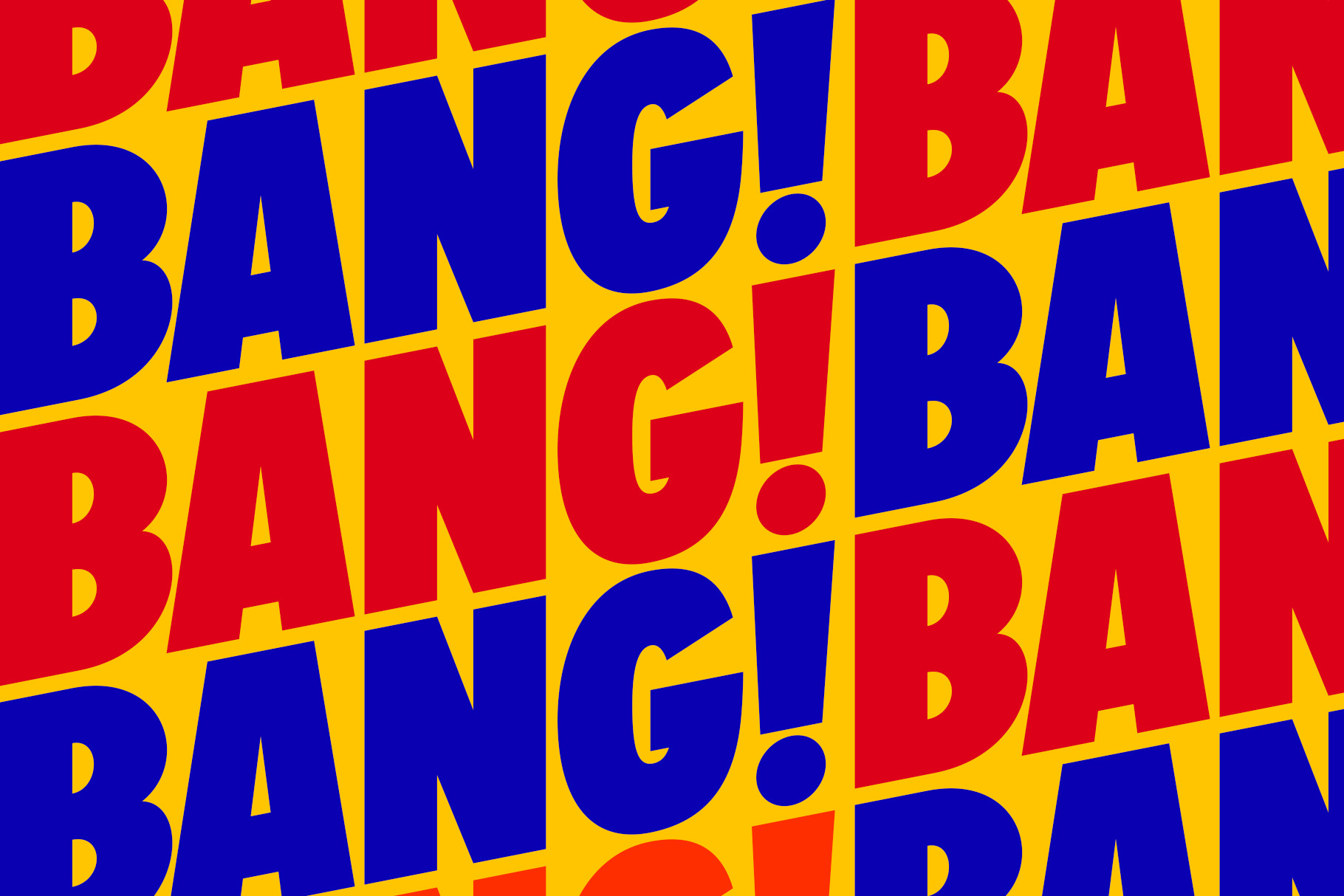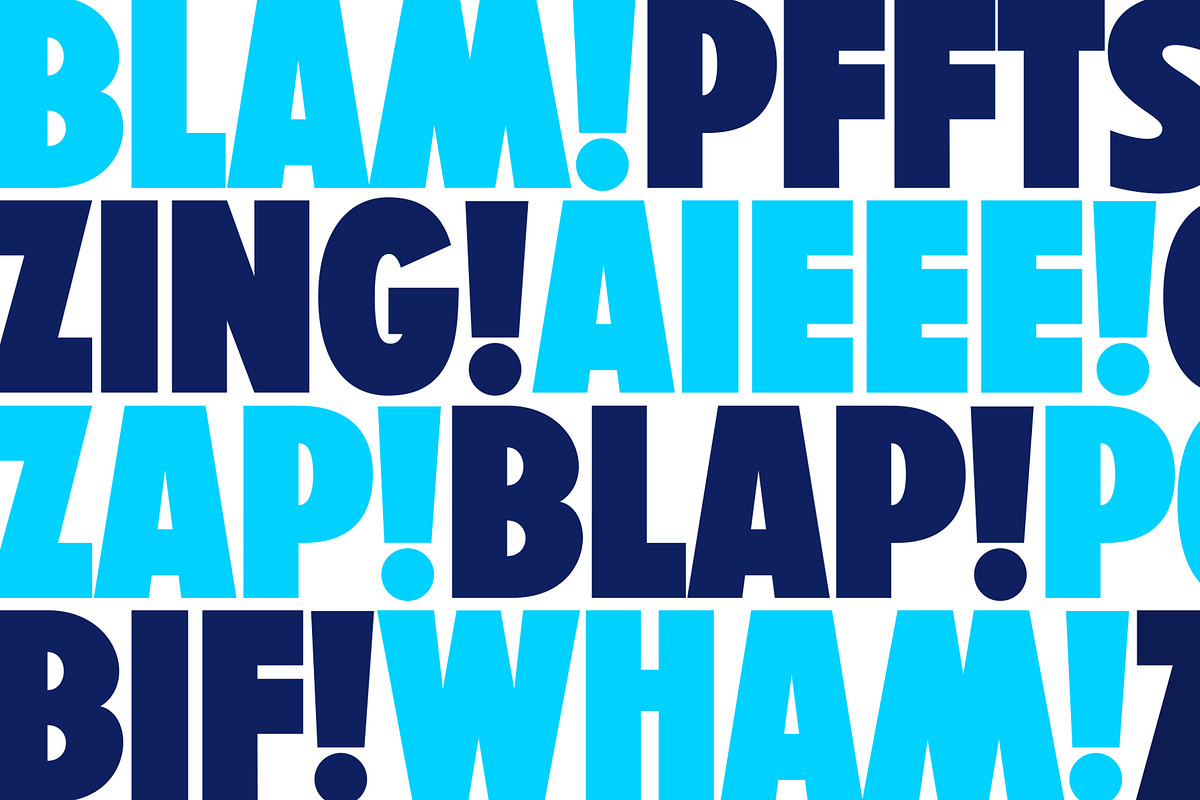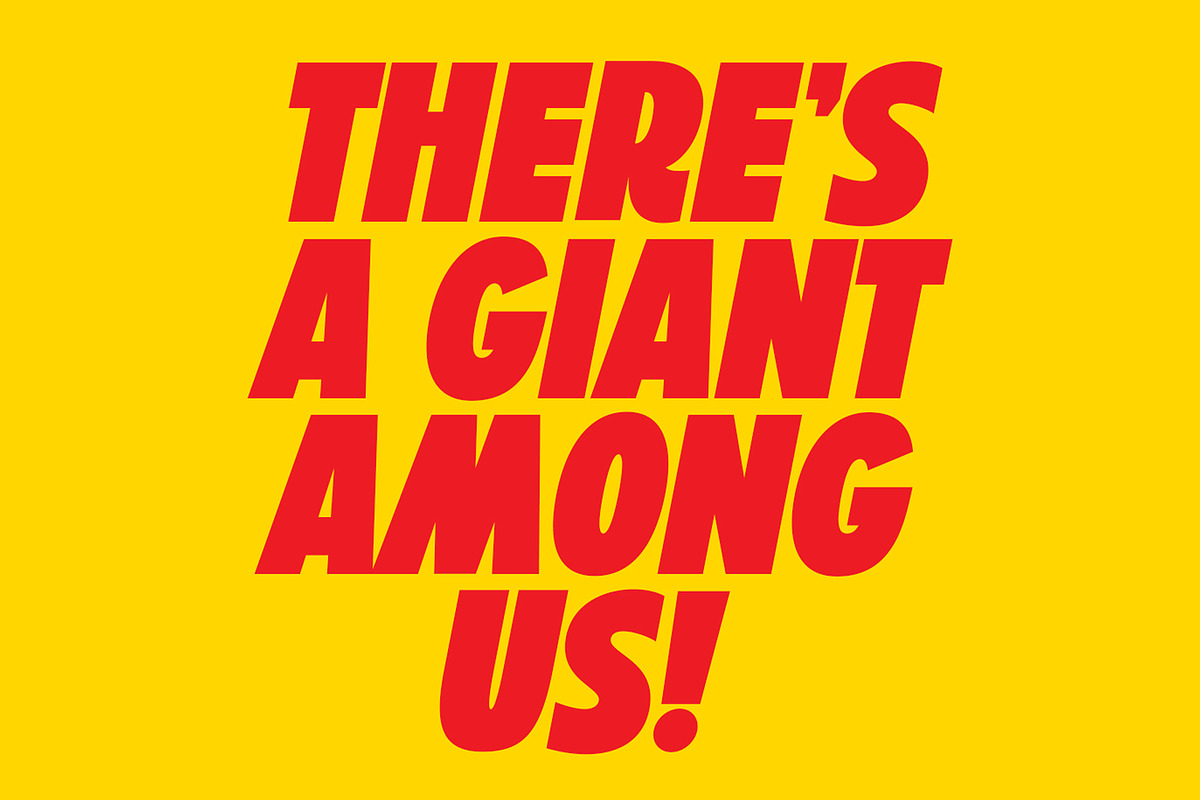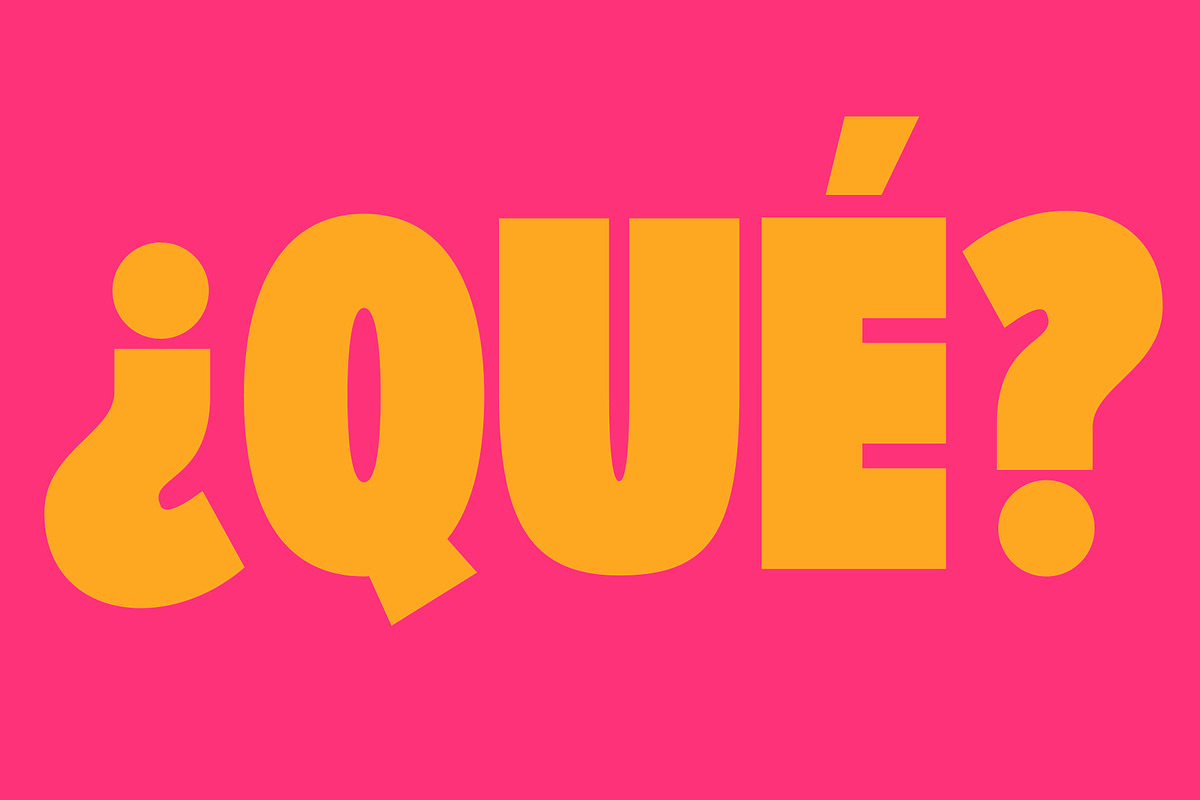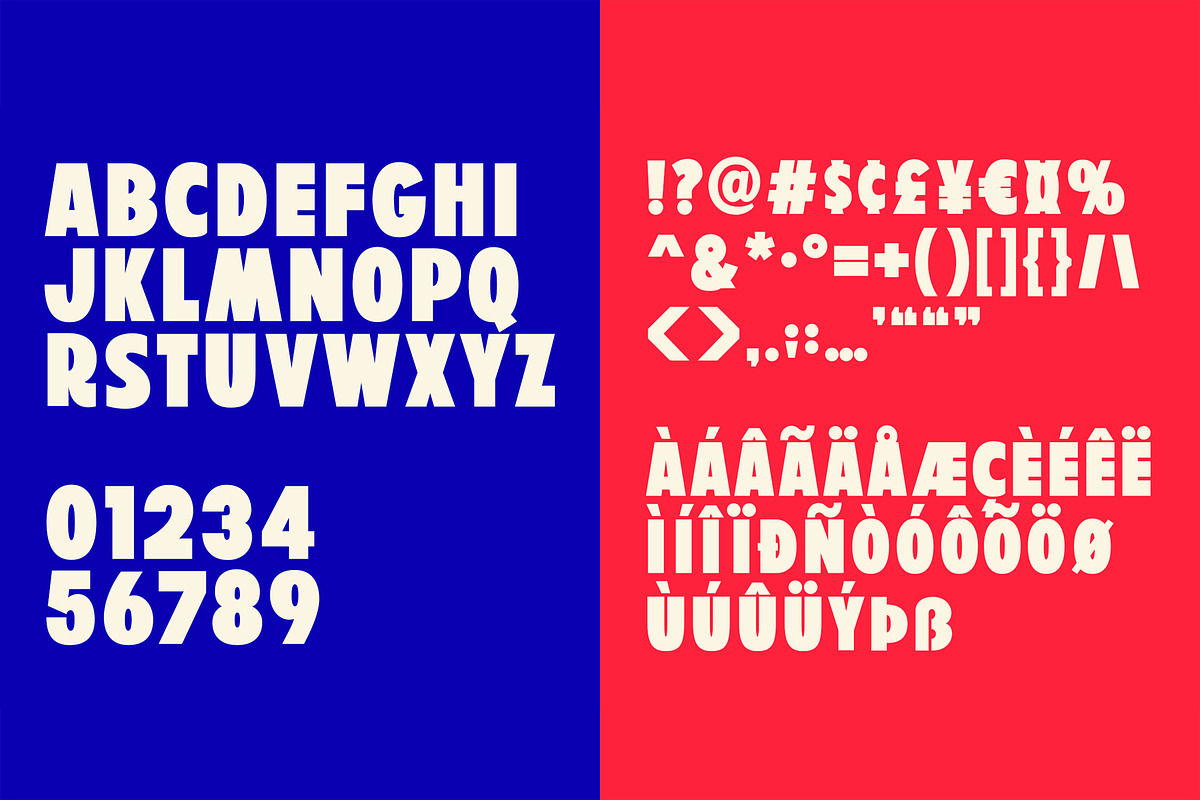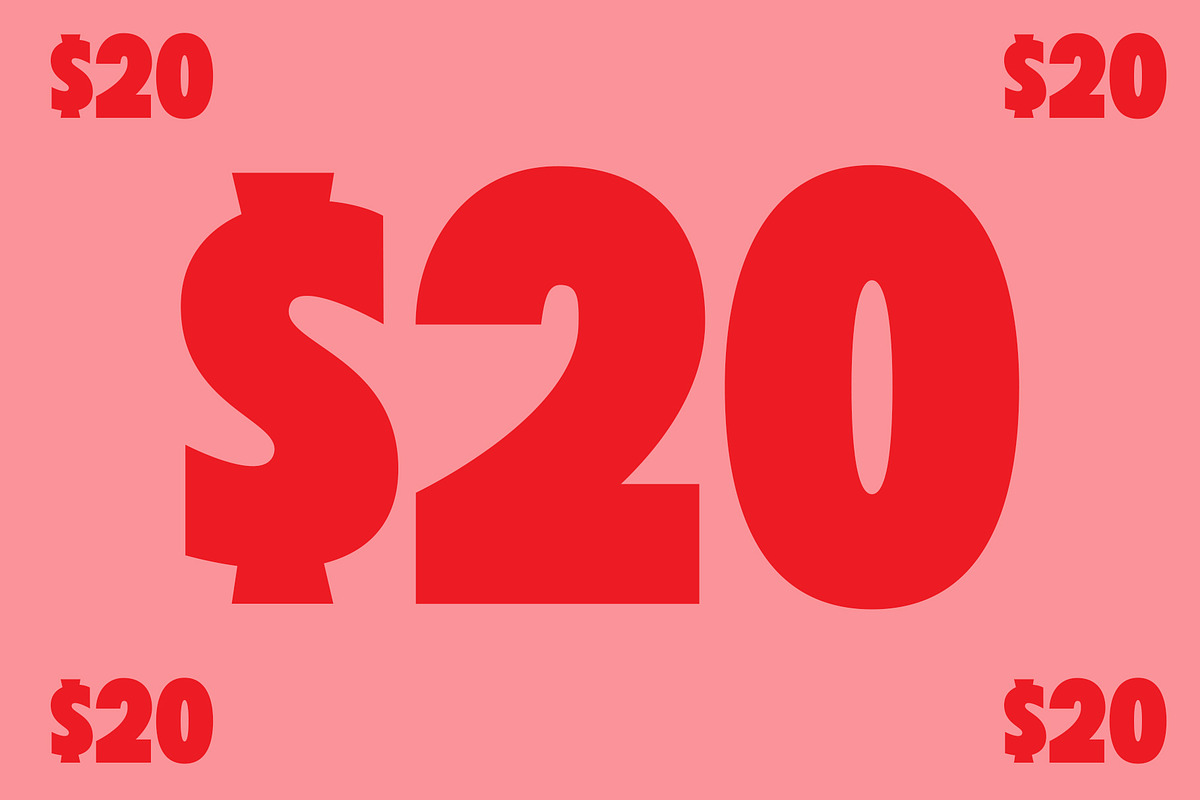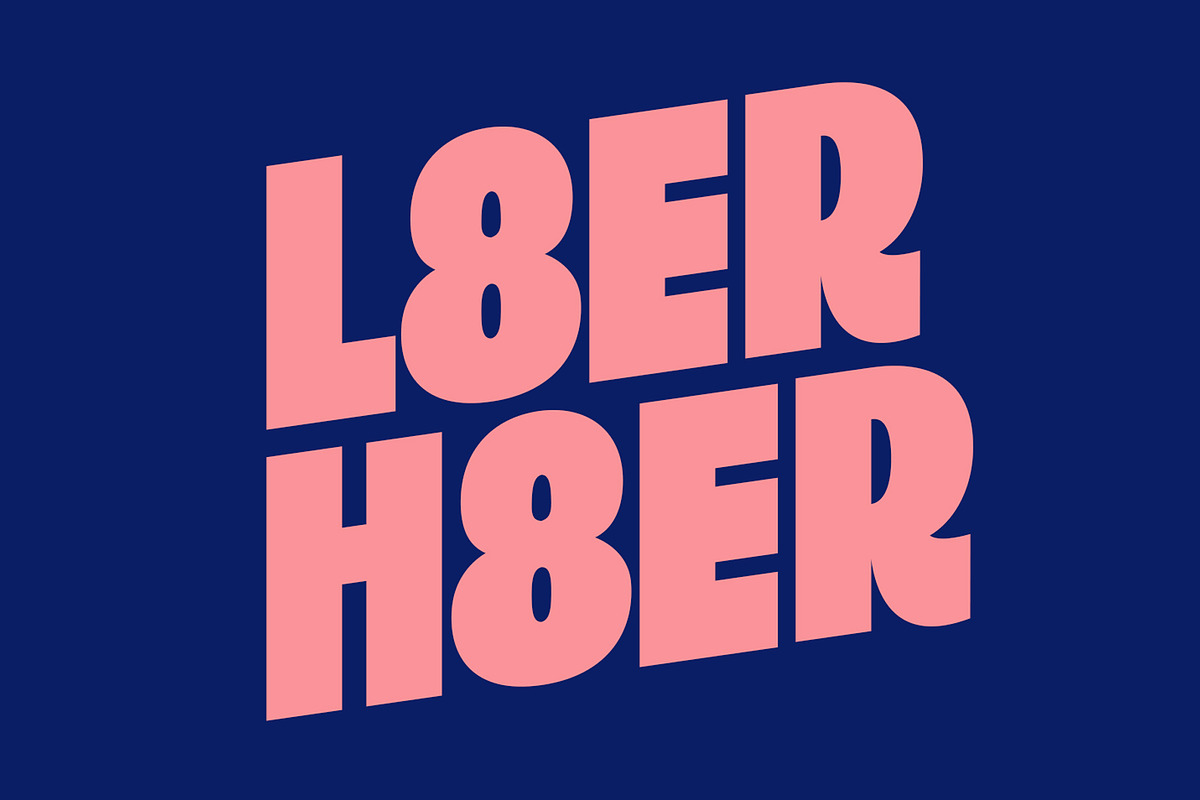
Bang! Bang! Typeface
Pew pew pew. Bang! Bang! is a thick and bold Grotesque-esque typeface. Kind of like that family friend you call “aunt” but isn’t actually your aunt. It’s got a Grotesque foundation and deviates from there, livening up the forms to infuse a little more personality.